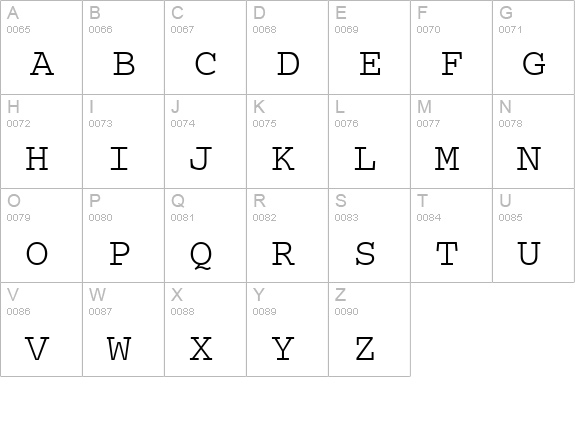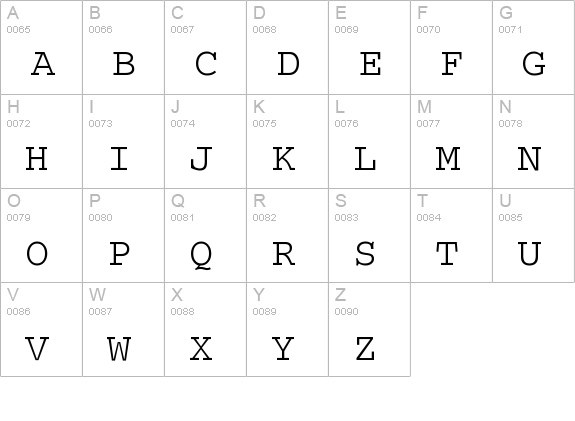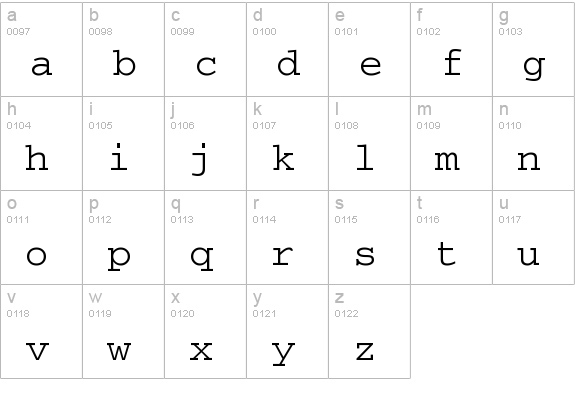
CourierPS Font Details
CourierPS is a classic and timeless font that exudes professionalism and reliability. With its clean lines and monospaced design, it is ideal for conveying a sense of order and precision in any project. Whether you are working on a document, presentation, or coding project, CourierPS offers a clear and easy-to-read appearance that ensures your content is easily understood. What makes CourierPS even more appealing is that it is available for free download at FontsMarket.com. This means you can enhance your designs with this esteemed font without any cost. Don't miss out on the opportunity to elevate your work with the elegance and functionality of CourierPS. Download it today from FontsMarket.com and experience the power of this versatile font for yourself.